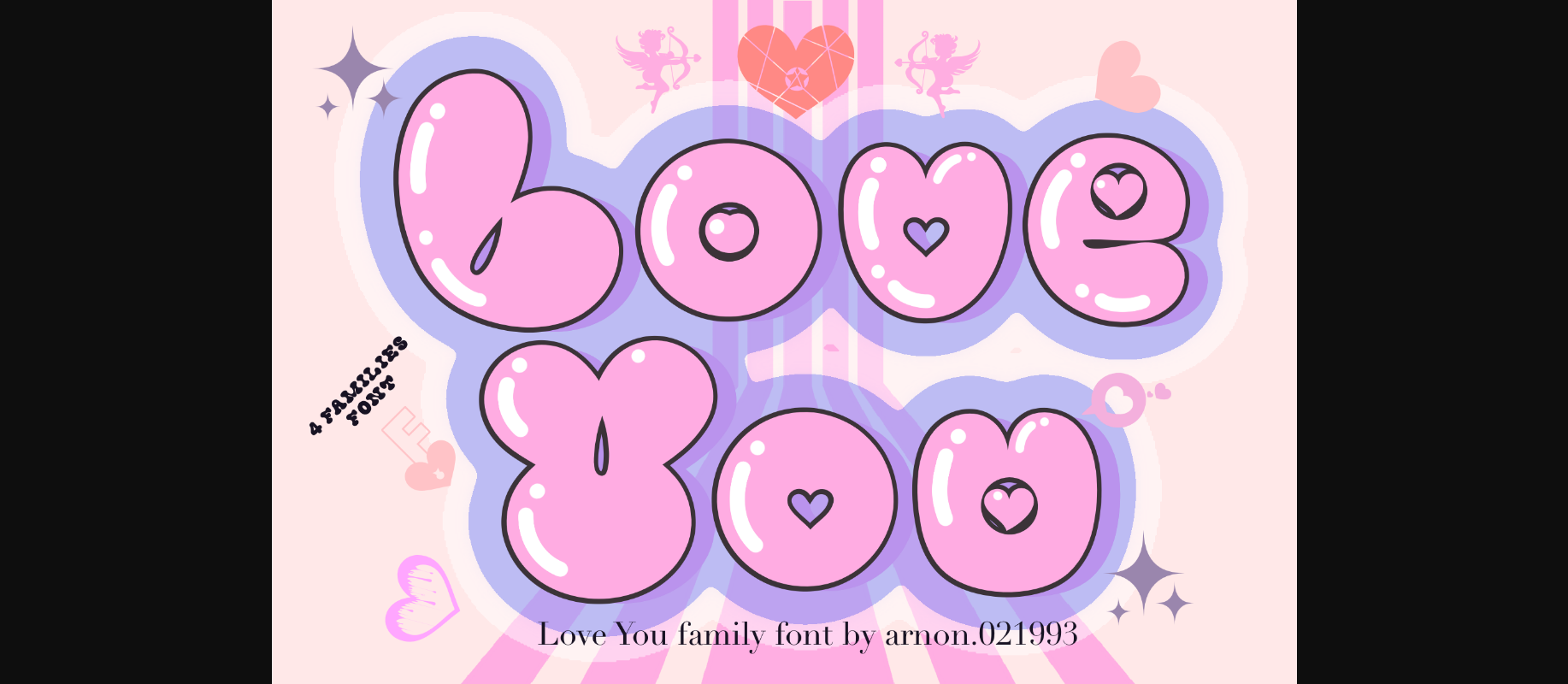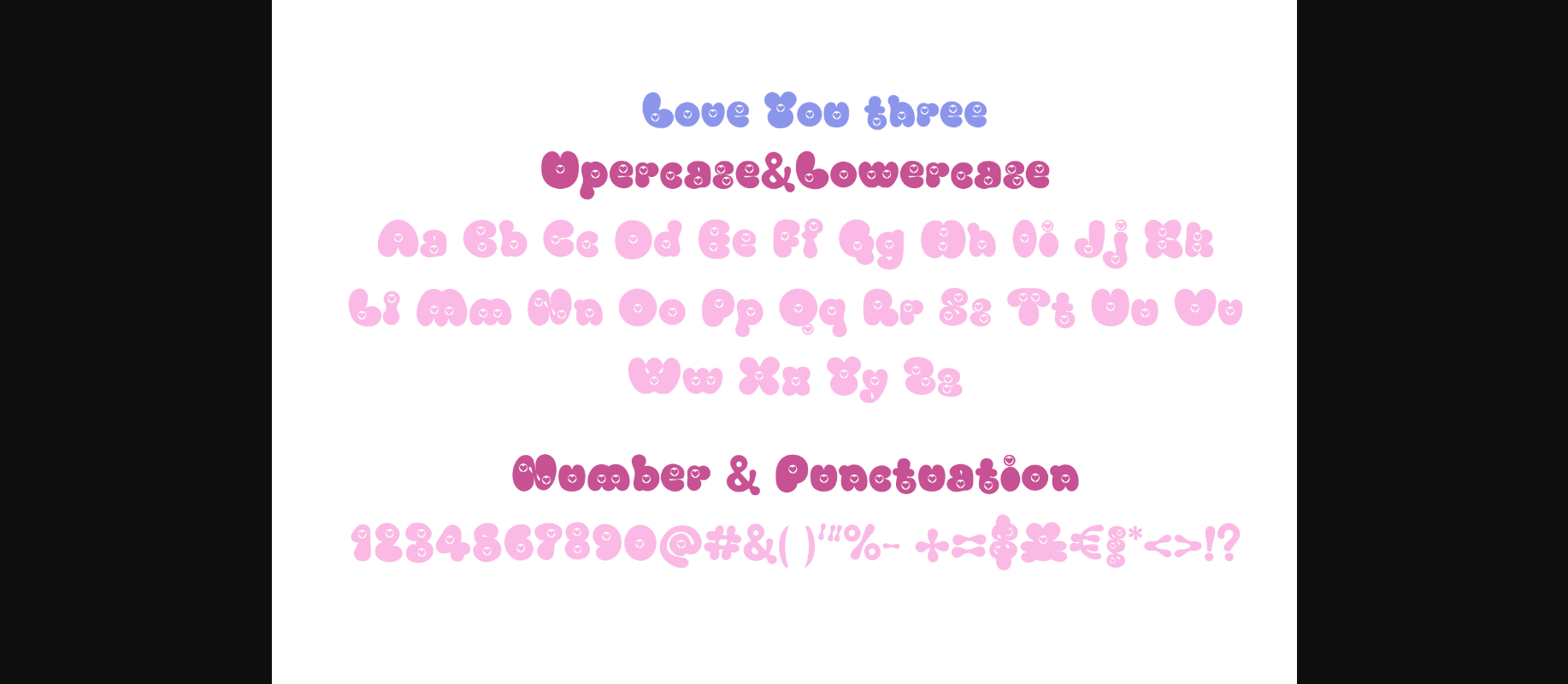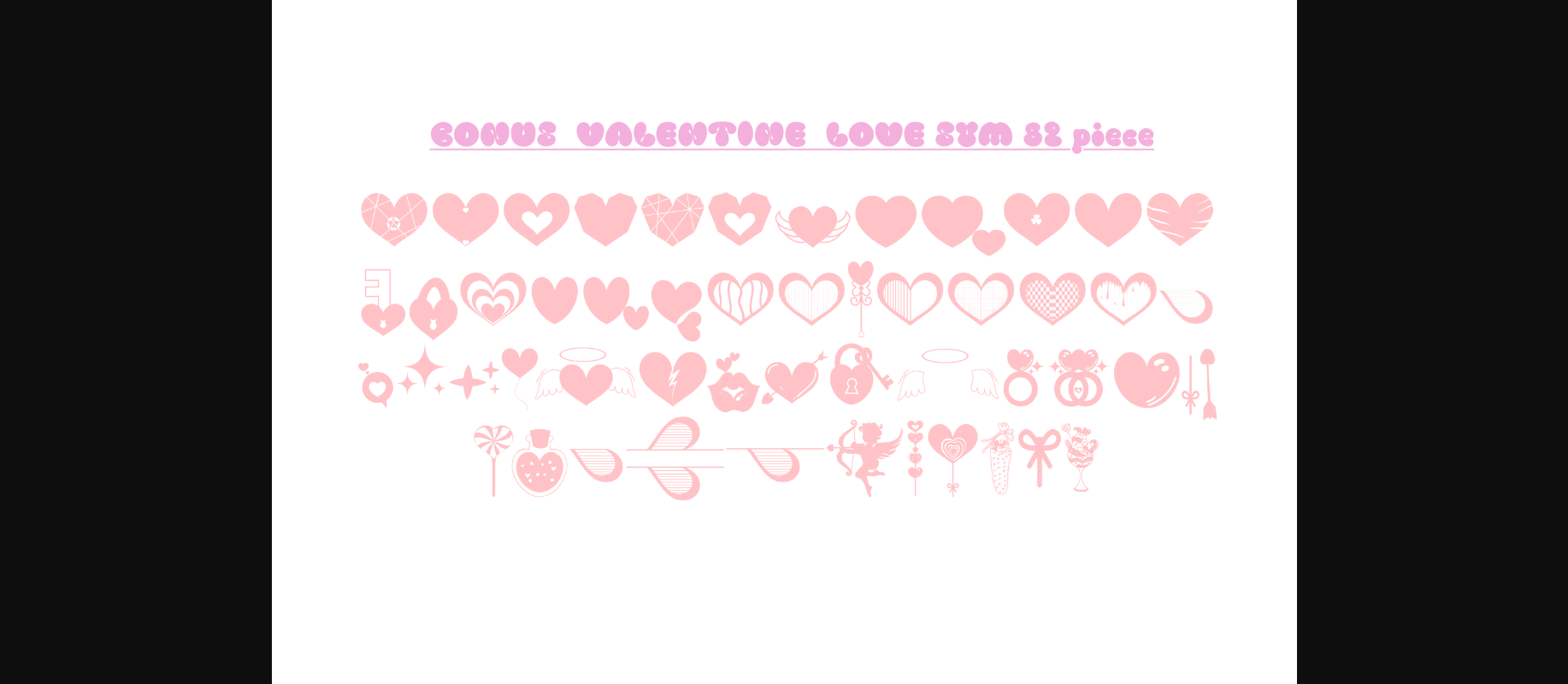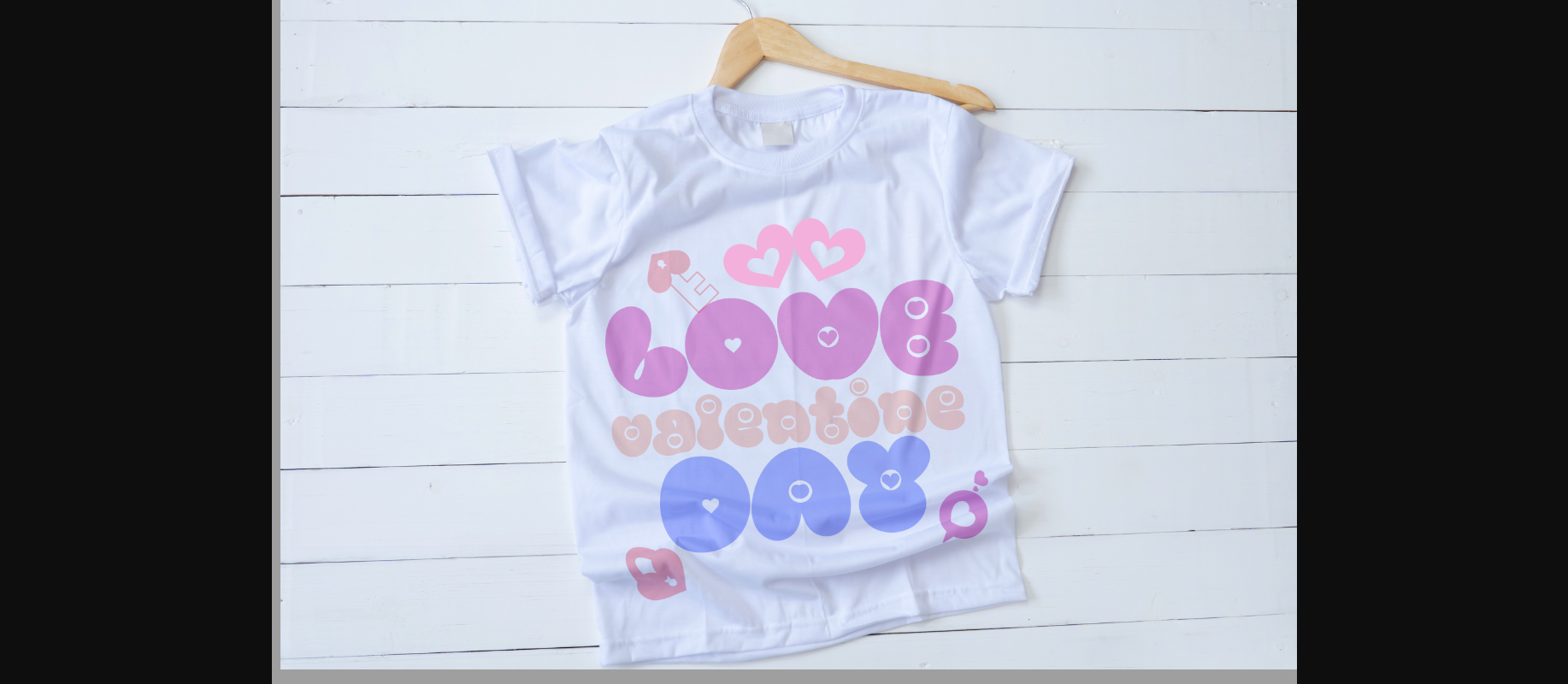
About Love You Font
Love You is a whimsical and bubbly decorative font that spreads joy with its playful design. Adorned with tiny hearts, it adds a touch of sweetness to your projects. Perfect for expressing affection in cards, invitations, or creative endeavors, Love You brings a lighthearted charm to your text. Let this delightful font infuse your words with love and cheer, creating a warm and inviting atmosphere in any design.